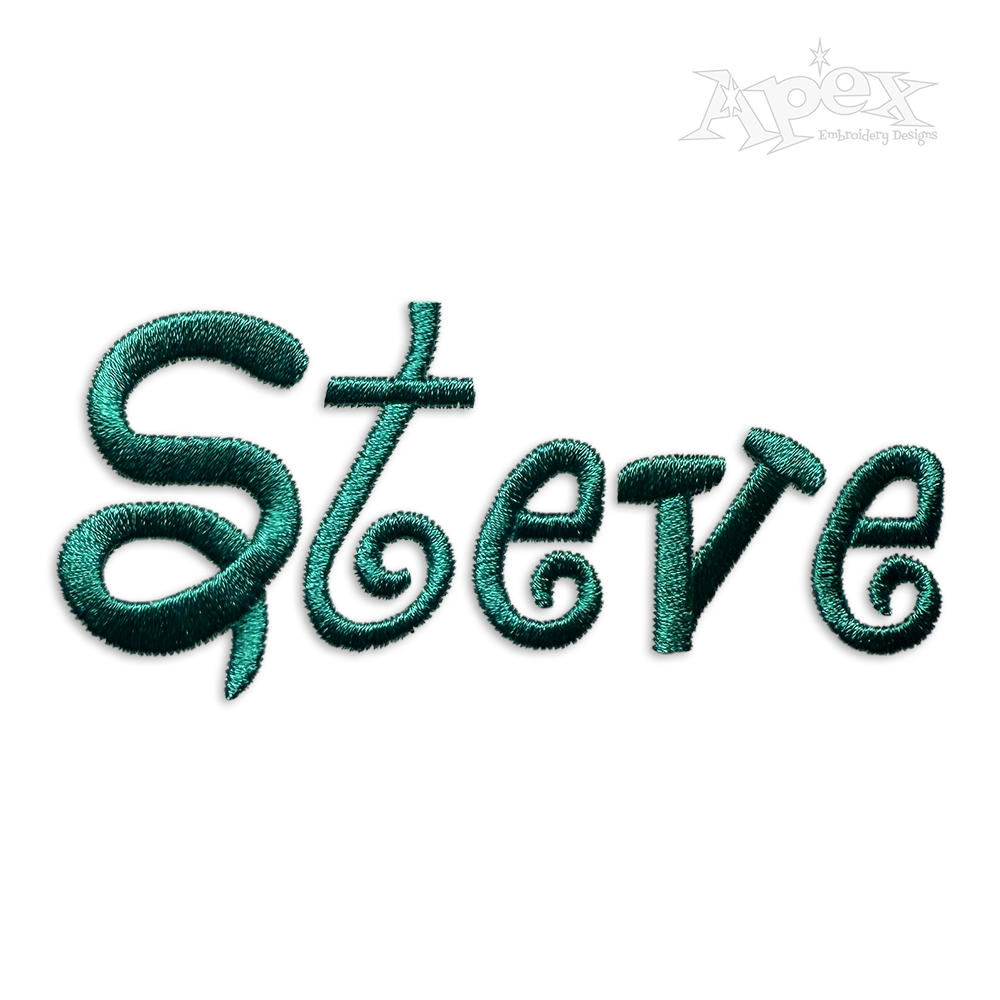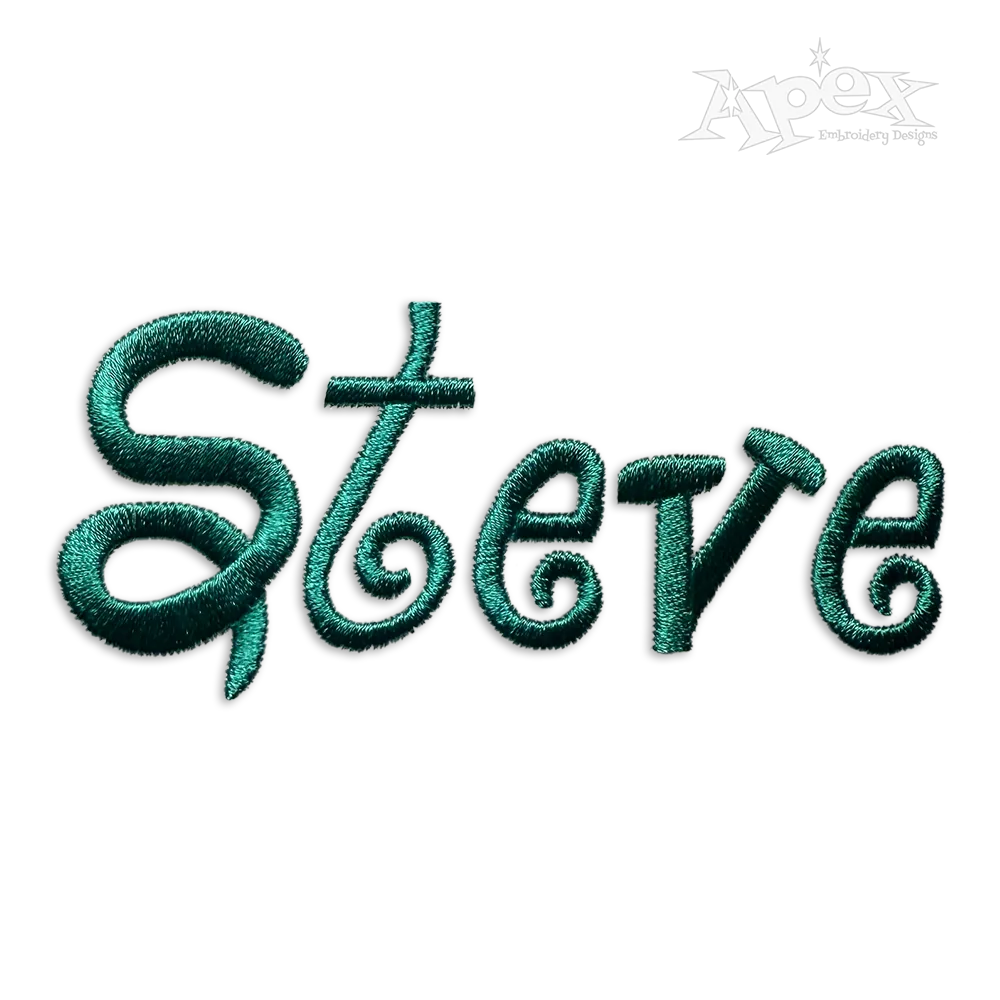
Dennis Script Embroidery Font
When shaping the buoyant curves of the Dennis Script embroidery font, we looked to the timeless golden age of storybook animation and vintage amusement park signage. It is a typeface brimming with uninhibited joy, characterized by lively brush sweeps, swirling loops, and an infectious retro personality. Digitized with exquisite stitch dynamics, every letterform captures the spontaneous energy of wet paint gliding across parchment, infusing personalized keepsakes, celebratory wardrobe pieces, and custom gifts with unmatched cheer and artisanal flair.
Project Ideas for Dennis Script
- Vacation & Resort Apparel: Stitch matching family trip tees, sun hats, and playful denim jackets tailored for magical holidays.
- Bespoke Nursery & Playroom Linens: Personalize plush cotton baby blankets, quilted play mats, and child-sized canvas reading hampers with names and joyful mottos.
- Personalized Canvas Carryalls: Elevate weekender duffels, poolside totes, and children's school backpacks with spirited custom lettering.
- Whimsical Table Linens: Embroider spirited sayings or family monograms across the corners of linen cocktail napkins and seasonal table runners.
- Holiday Keepsakes: Create cherished annual traditions by personalizing velvet Christmas stockings, trick-or-treat bags, and celebratory birthday bunting.
- Left-Chest Casuals: Position the 1-inch or 2-inch lettering 7 to 9 inches down from the shoulder seam and 3 to 4 inches right of center on pullovers, cardigans, and polos.
- Curved or Straight Center Chest: Feature the 3-inch or 4-inch sizes across the chest of vintage fleece sweatshirts, angling or arcing the letters to amplify the retro storybook charm.
- Tote & Pouch Center: Frame your chosen name or phrase across the horizontal midpoint of canvas bags, ensuring generous margins to let the curly flourishes breathe.
- Diagonal Cornering: For table napkins and tea towels, angle the monogram at a 45-degree angle approximately 1.5 inches from the bottom right hem for a relaxed yet curated finish.
Dennis Script Craft & Letterform Details
The true genius of Dennis Script lies in its thoughtful balance between energetic brush calligraphies and meticulous embroidery engineering. Brush-style scripts are notorious for heavy overlaps and uneven thread buildup, but Dennis has been crafted with deliberate variable-density profiles. Underlay stitches are carefully mapped along the stroke path, reinforcing the broad swells while maintaining ultra-supple flexibility on delicate garments.
As the satin columns sweep through the high-spirited loops and curly serifs, the stitch angles pivot gracefully. This calculated directionality catches the ambient light from multiple perspectives, mimicking the authentic dimensional sheen of hand-laid brushwork. The connections between lowercase glyphs have been precision-calibrated to nest seamlessly together, ensuring smooth transitions, minimal jump stitches, and an effortless, hand-lettered visual continuity from the first letter to the final flourishing curl.